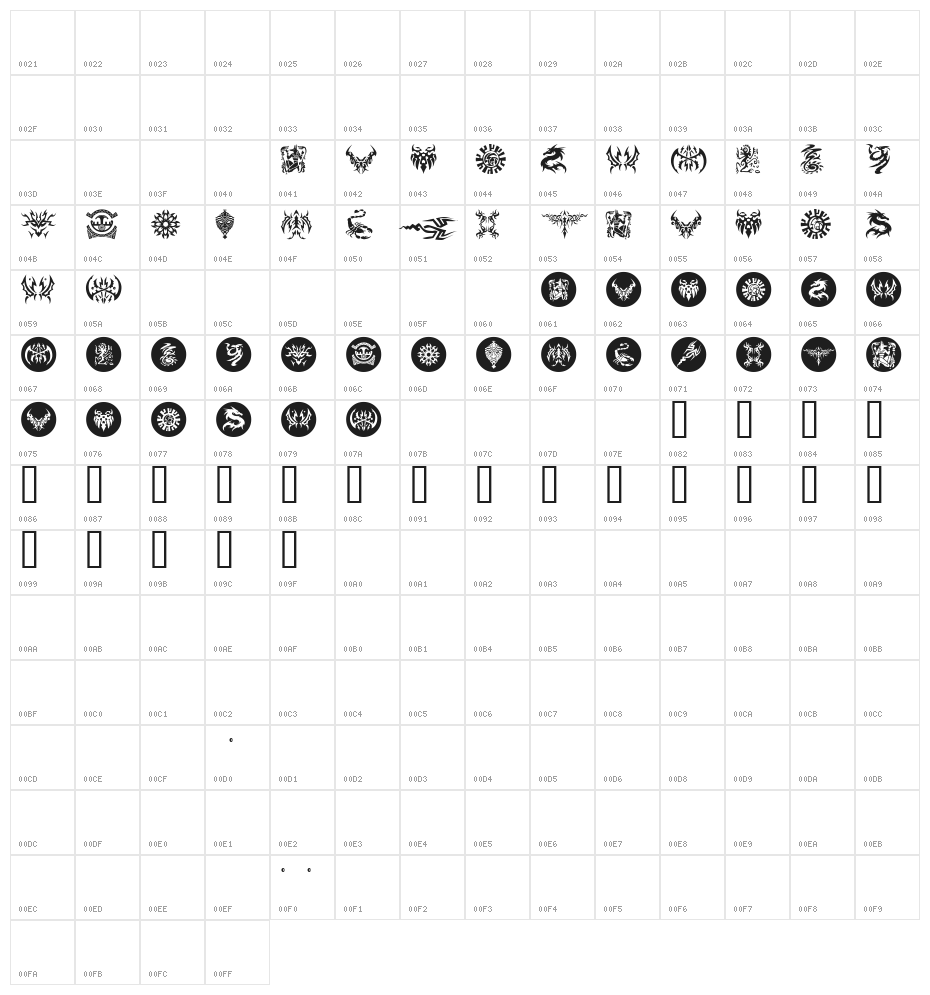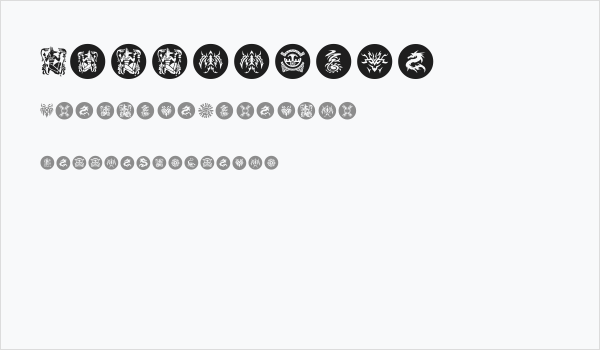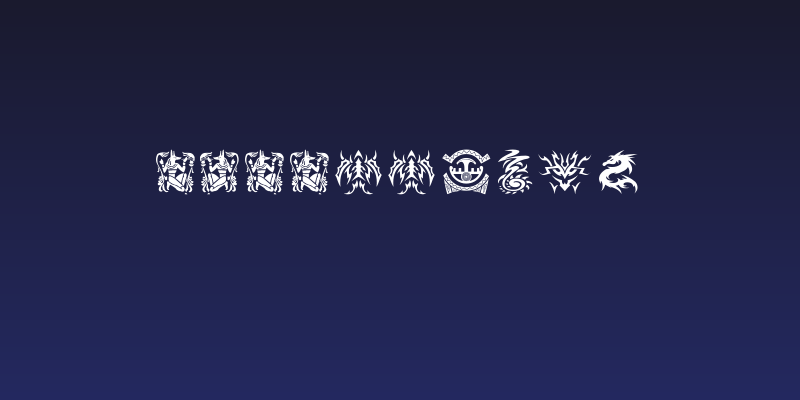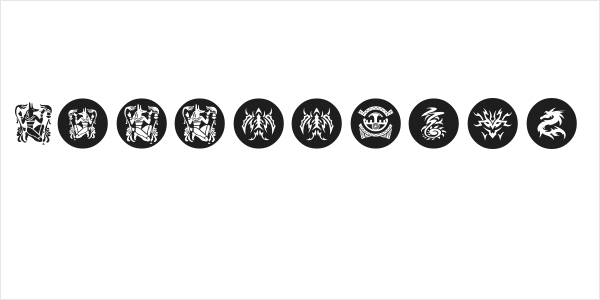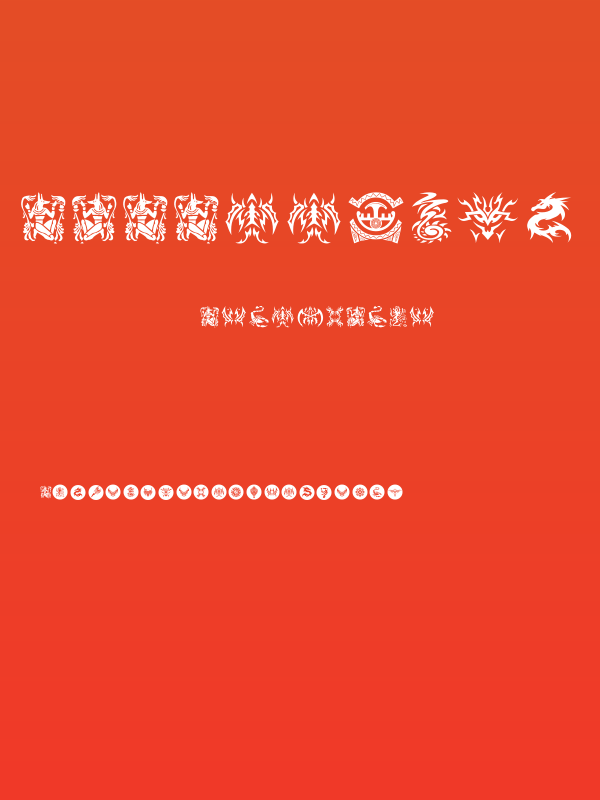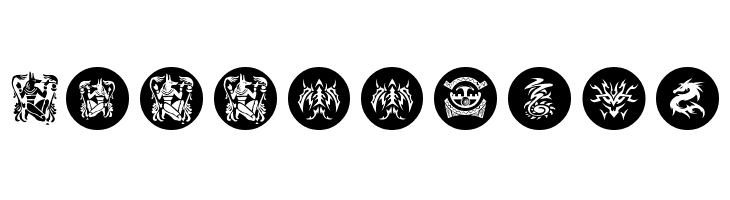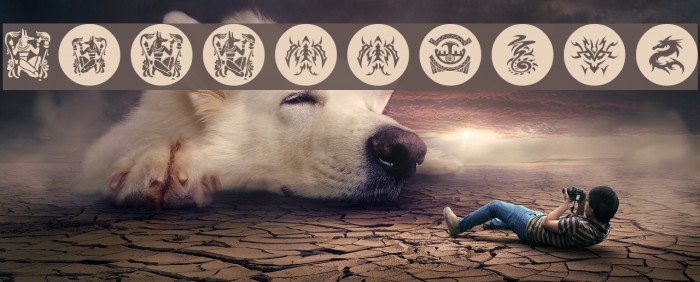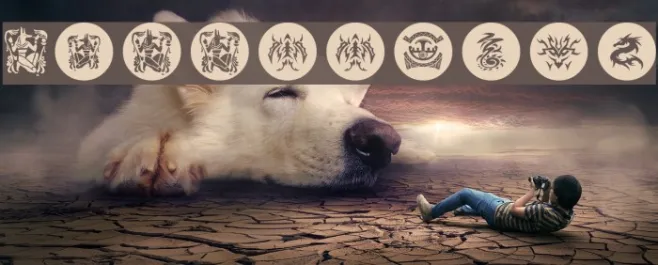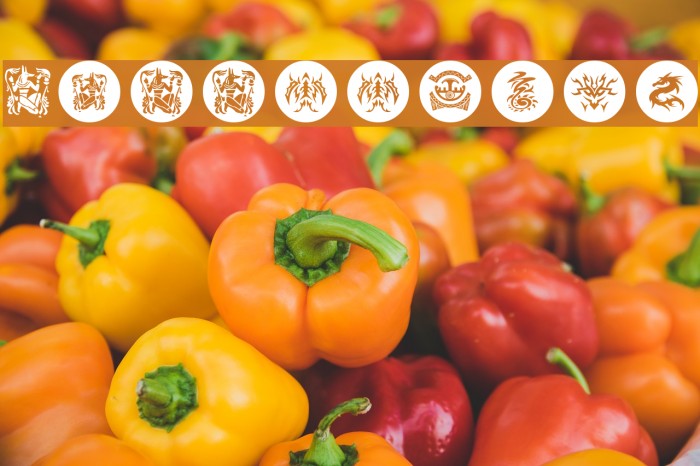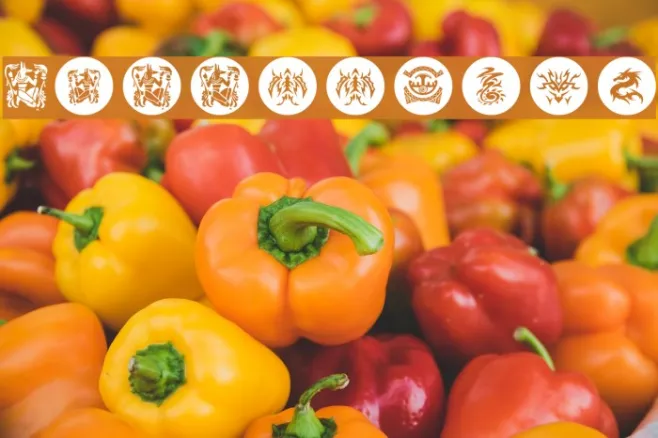
Tattoolike Font
Tattoolike Description
A highly decorative and illustrative set of glyphs inspired by tribal tattoo motifs, featuring bold, abstract, and symmetrical shapes with sharp edges and intricate detailing. The characters are not traditional letterforms but rather pictorial symbols, each with a unique ornamental design.
| Overall Style | Decorative, Tribal, Ornamental |
| Use Case | Logos, Posters, Decorative headings, Tattoo concepts |
| Proposed Projects | Tattoo design mockups, alternative branding, poster art, album covers, themed event graphics. |